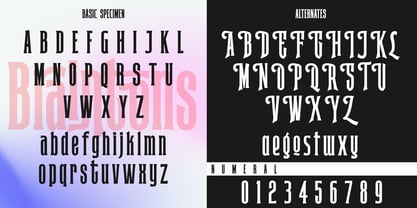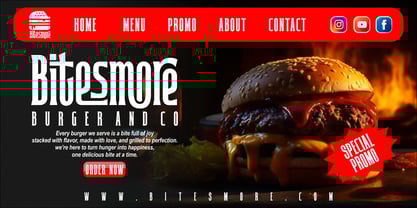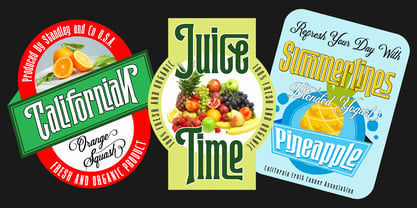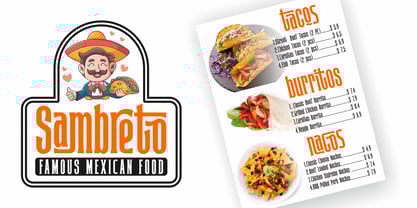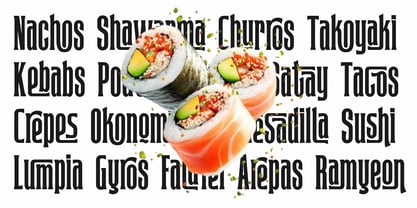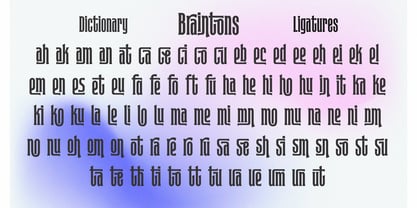
Braintons
by Uncurve
The Braintons Font Family was designed by Ferry Septian and published by Uncurve. Braintons contains 1 styles. More about this family
Braintons – Modern Condensed Display Font
Braintons is a bold and stylish modern condensed display font designed to make a strong visual impact. With a unique combination of alternates and creative lowercase ligatures, Brainton brings dynamic rhythm and personality to any design. Just play with the ligatures, and you'll unlock endless possibilities for eye-catching layouts.
Perfect for both modern and retro-inspired projects, Braintons is ideal for logos, posters, headlines, branding, book covers, apparel, product packaging, websites, social media posts, brochures, food posters, sports events, and more.
Whether you're crafting a clean minimalist design or something more expressive and bold, Braintons adapts effortlessly—making it a versatile go-to font for any creative project.